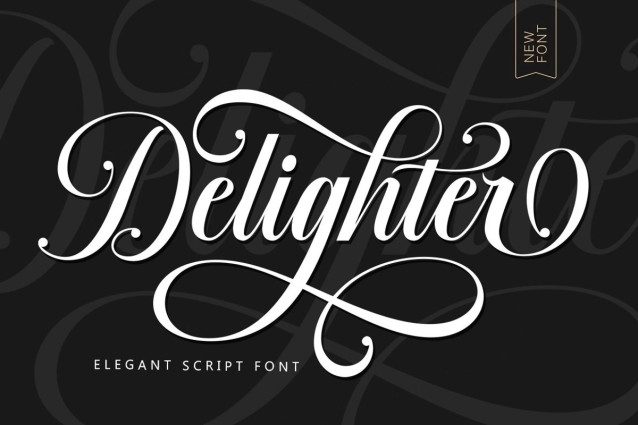
Delighter Script Font
Delighter Script Font is an elegant script font featuring a beautiful character variation. This font combines a classic style with a modern touch, designed with great attention to detail for an elegant look. This font is visually appealing, clean, feminine, and easy to read, thanks to its fancy letter connections. The classic style is perfect for a variety of formal purposes, including invitations, labels, restaurant menus, logos, fashion, makeup, stationery, novels, magazines, books, greeting and wedding cards, packaging, and all kinds of advertising.